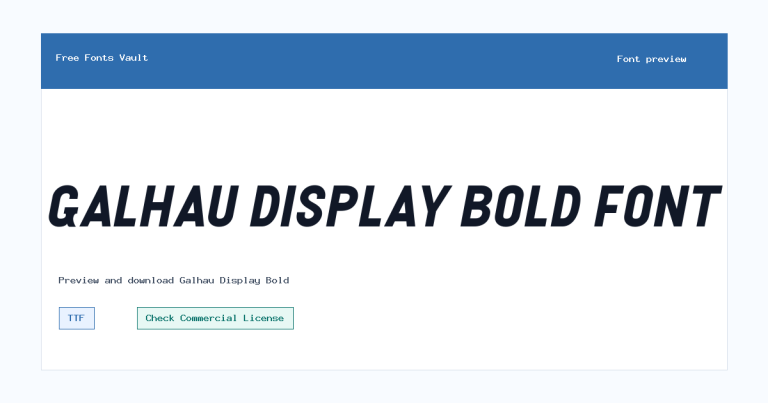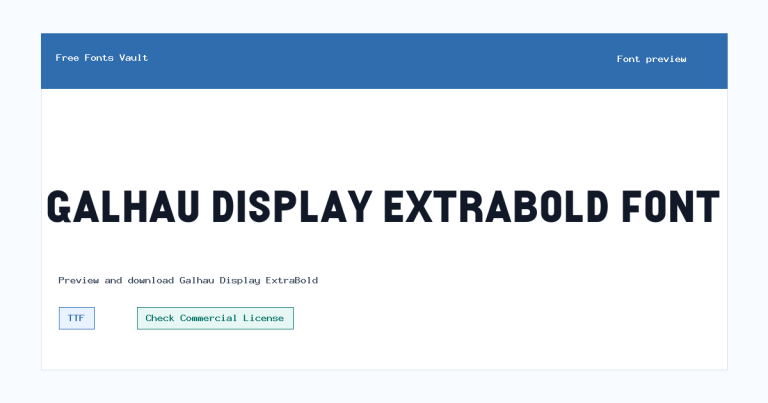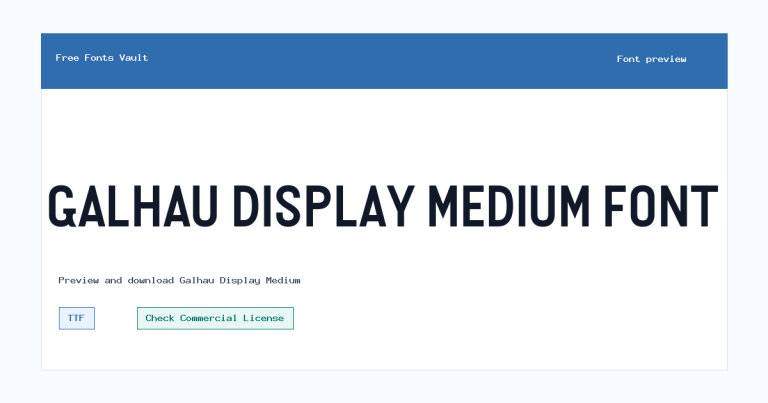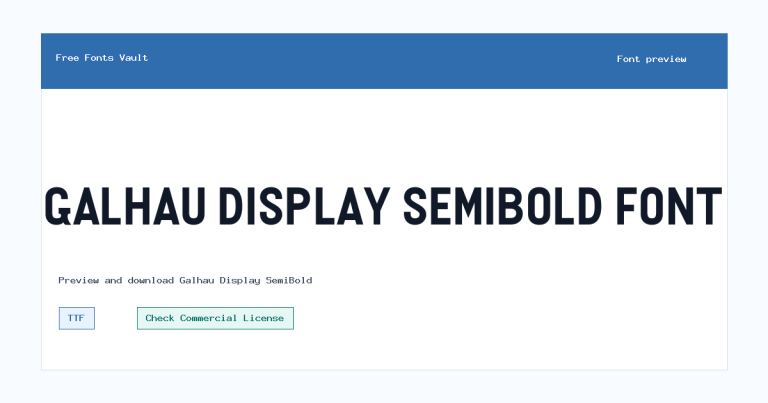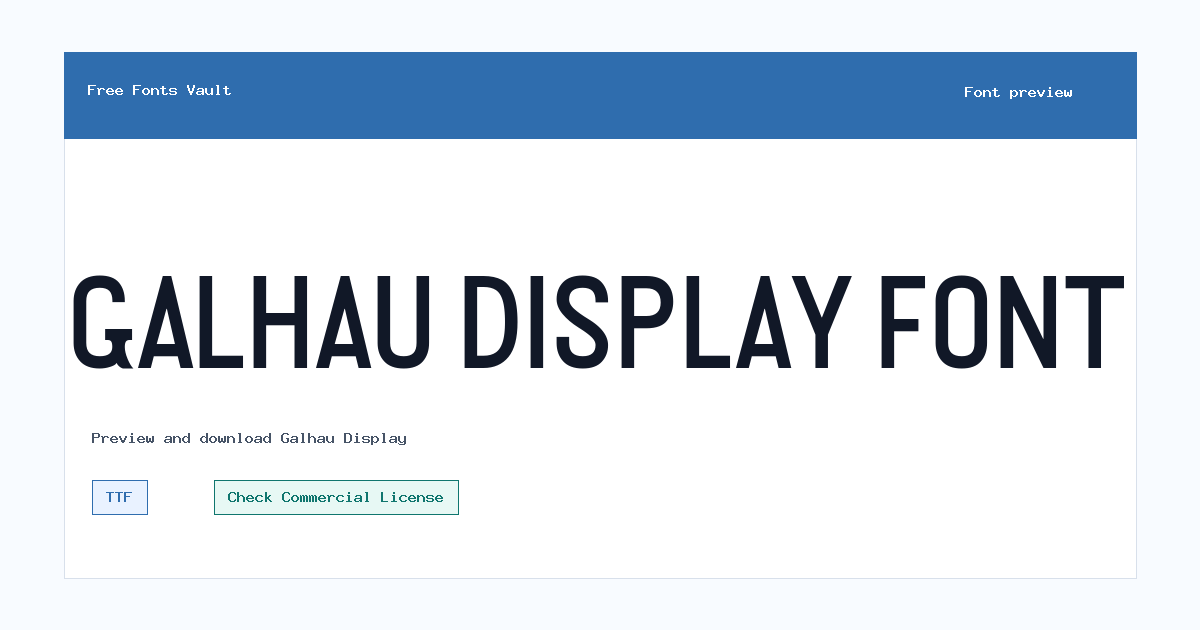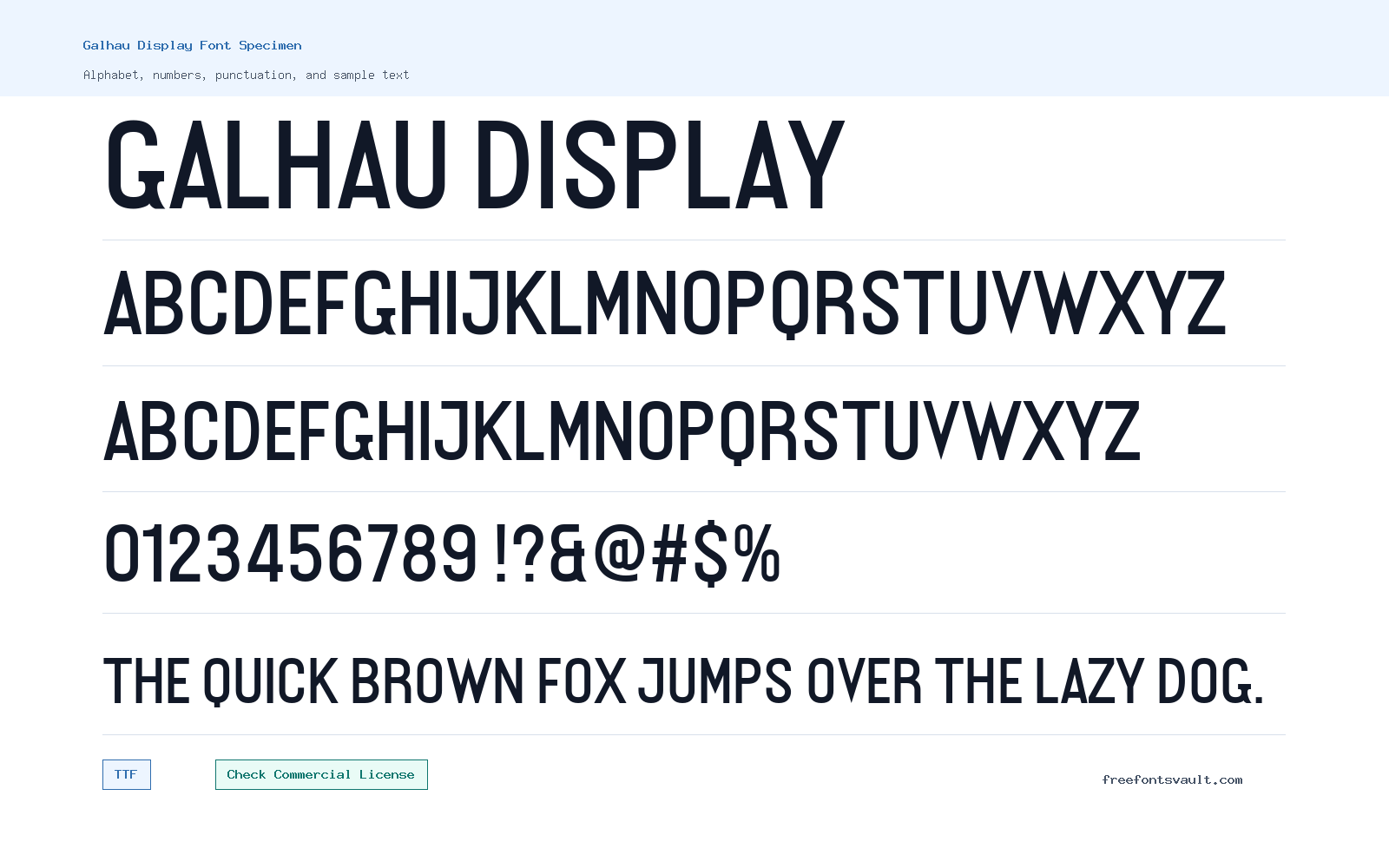
Galhau Display
- Designer cantdealwithtype
Galhau Display is a condensed display font with tall, narrow letters and a strong all-caps look. It works best when you need short text to feel bold without taking up too much horizontal space.
Galhau Display has upright regular and bold styles, plus a slanted cut for more movement. In the preview, its letters look narrow, clean, and tightly built, with straight sides and a compact rhythm that suits display typography more than long reading.
Use it for words or short phrases where size and spacing can be tested carefully. The family also has a variable TTF file, which gives more flexibility for weight and slant adjustments in apps that support variable fonts. For smaller text, check the preview first, because condensed display letters can become harder to read when the size drops or the line gets too long.
- Condensed display style with tall, narrow letterforms
- Variable font data includes weight and slant axes
- Strong uppercase appearance for short, high-impact text
- Posters, banners, and event graphics
- Logos, wordmarks, and short brand headings
- YouTube thumbnails and social media title text
- Packaging labels and compact headline layouts
Start with short words, large sizes, and a little extra letter spacing if the text feels too tight. Pair it with a simpler sans serif or serif for body copy so Galhau Display can stay focused on headings and accents. The regular Galhau Display cut is the most practical starting point for this family. It lets you judge the proportions before moving to Medium, SemiBold, Bold, or ExtraBold. Start with the regular style for the main phrase, then add heavier variants only where the hierarchy needs more force. For logos and poster titles, compare the regular cut with the slanted or heavier files so the final choice matches the mood of the project.
What is Galhau Display best used for?
It is best for short display text such as titles, posters, logos, thumbnails, labels, and bold social graphics.
Is Galhau Display good for paragraphs?
It is better for headings than paragraphs. Its condensed shapes are useful for impact, but long text may feel tight or tiring to read.
Does Galhau Display include a variable font?
Yes. The font files include a variable TTF with weight and slant controls in software that supports variable fonts.